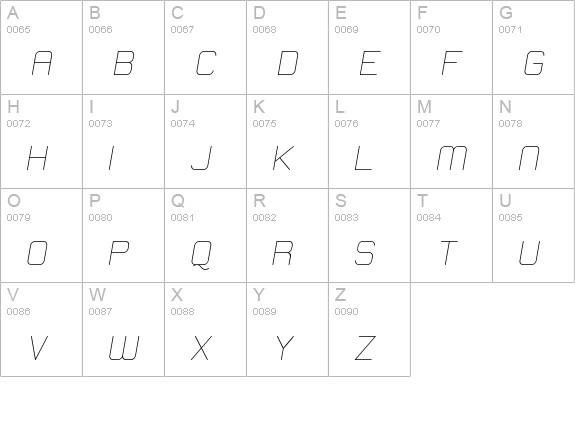
Elgethy Est Upper Font Details
The Elgethy Est Upper font is a stylish and modern typeface that exudes elegance and sophistication. With its bold and clean lines, this font is perfect for creating eye-catching headlines, logos, and branding materials. The Elgethy Est Upper font is not only visually appealing but also highly versatile, making it suitable for a wide range of design projects. Best of all, the Elgethy Est Upper font is available for free download at FontsMarket.com. Whether you're a professional designer looking to add a new font to your collection or a hobbyist looking to spice up your creative projects, this font is a fantastic choice. Download the Elgethy Est Upper font today and elevate your designs with its unique and striking aesthetic.